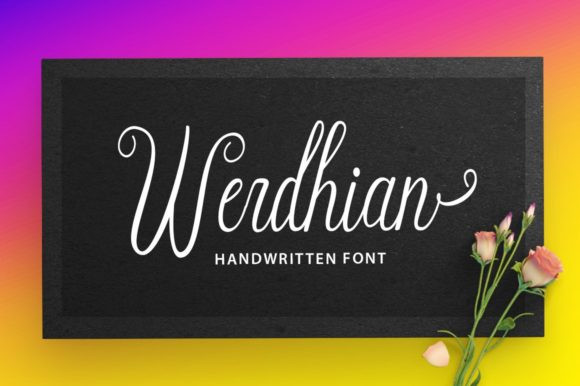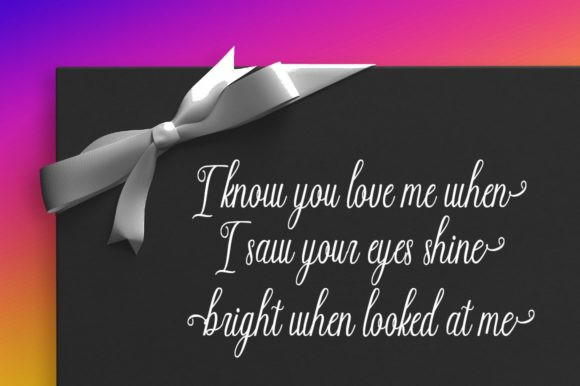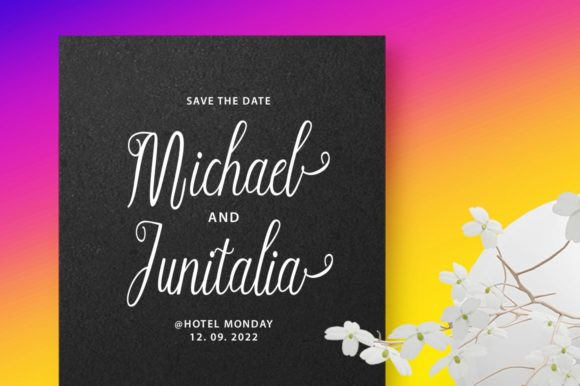
Werdhian Font
Werdhian FontWerdhian is a tall and elegant handwritten font. This font is perfect for creating modern designs like ads, logos, branding, quotes, poster, wedding invitation and more.